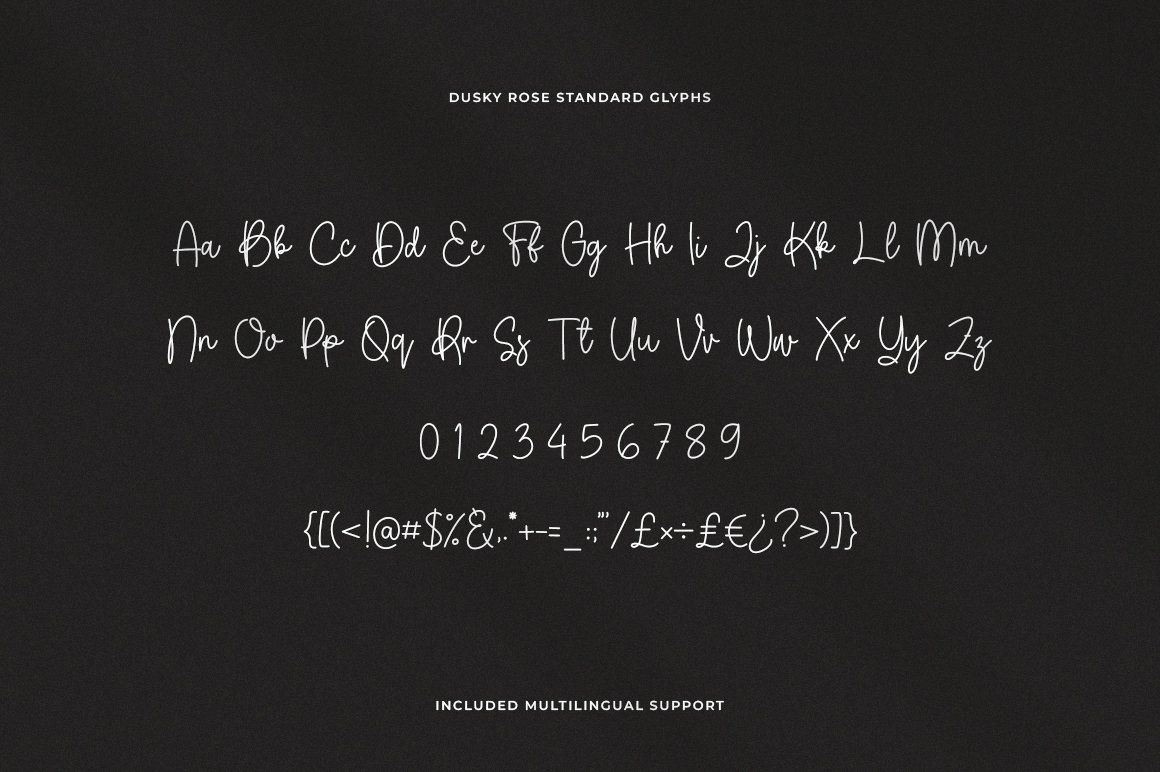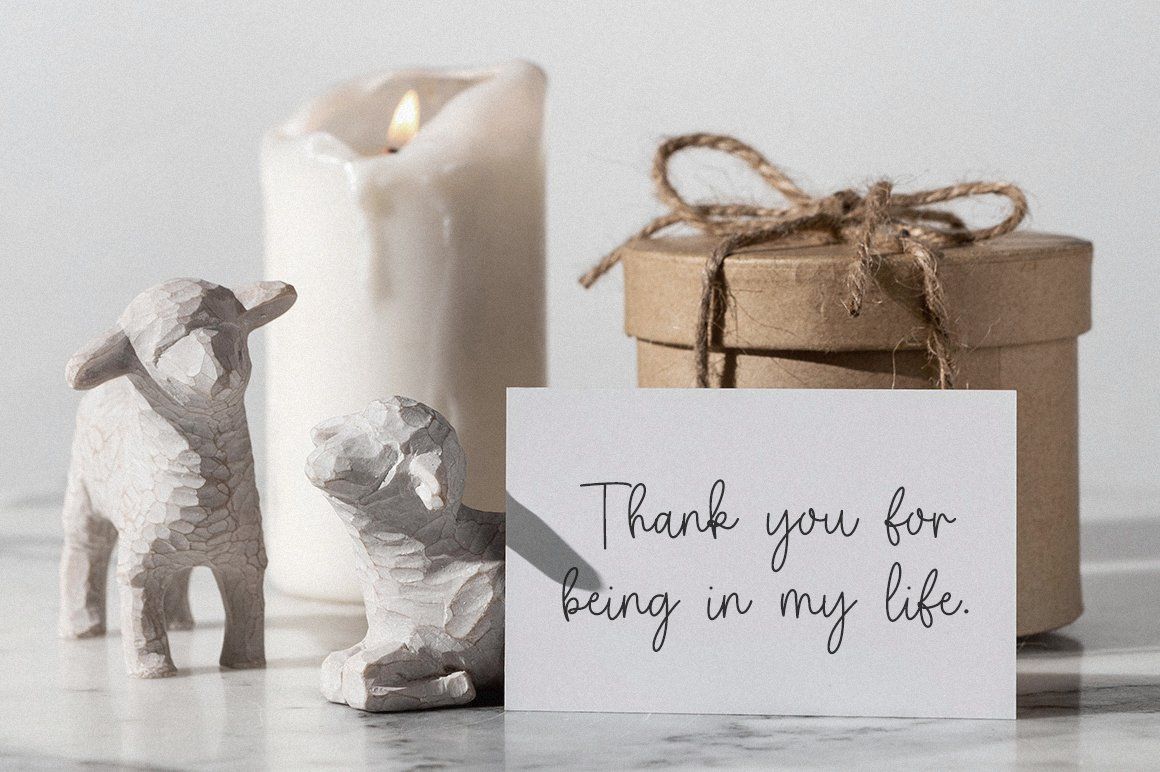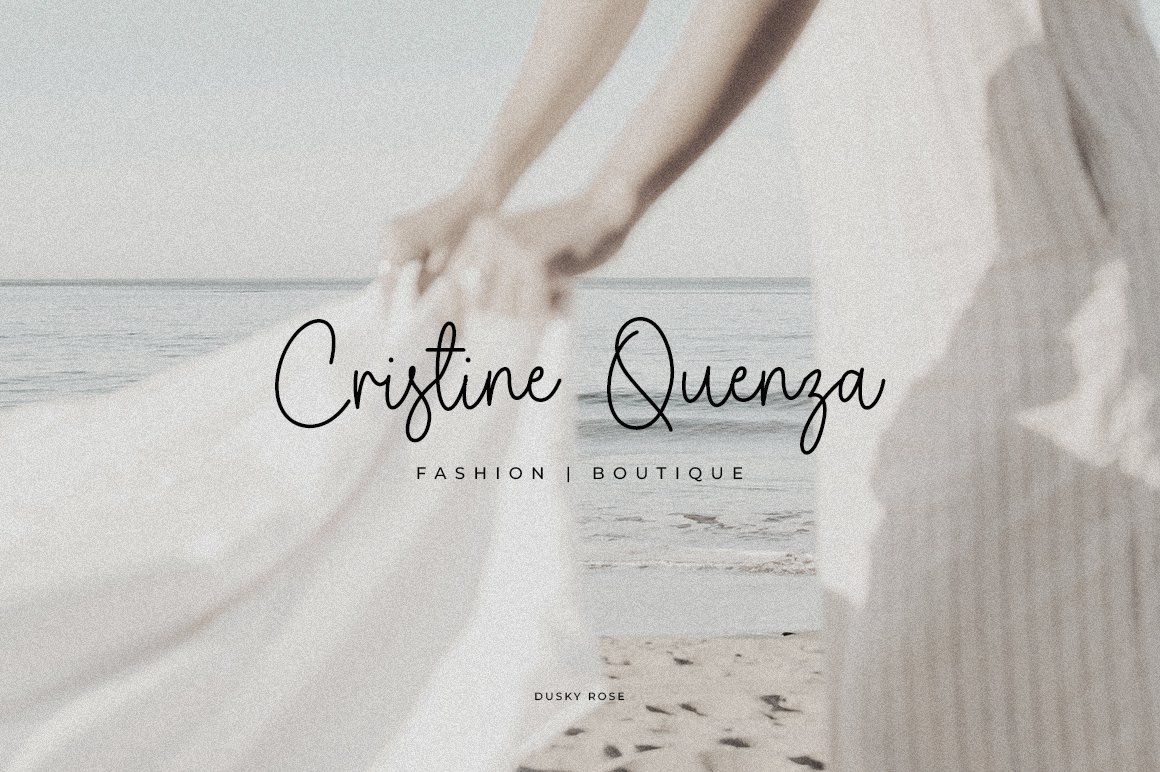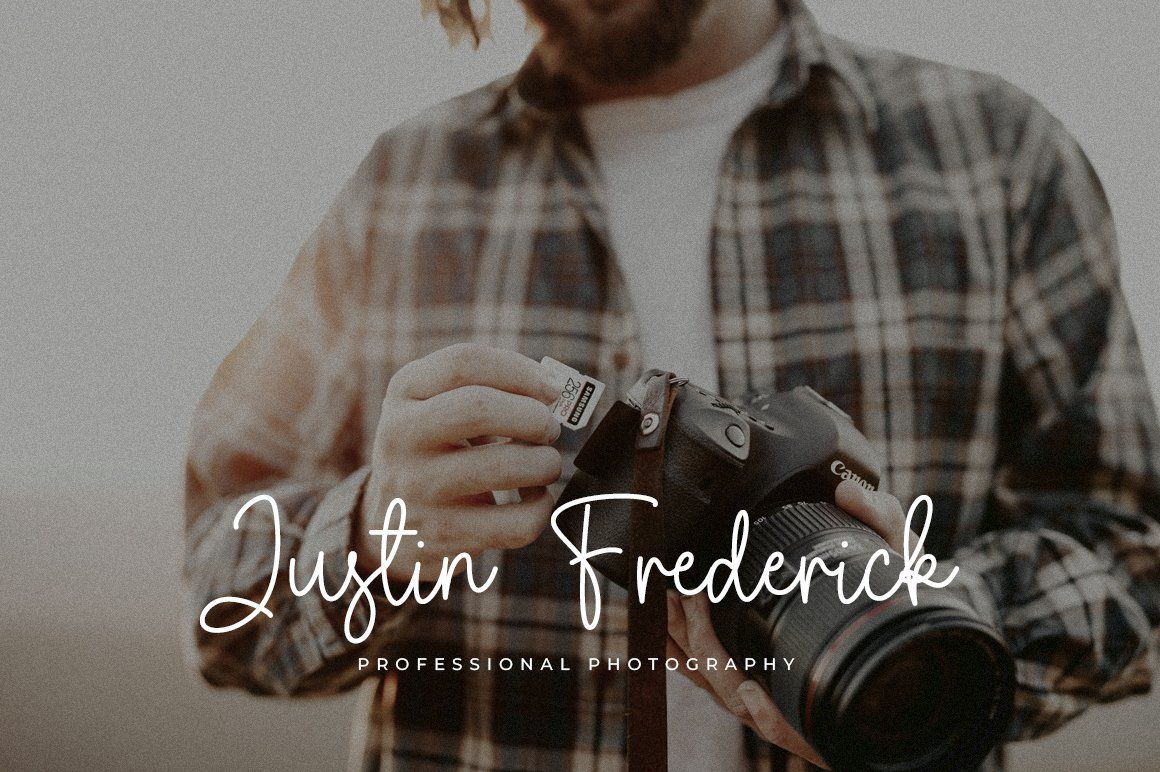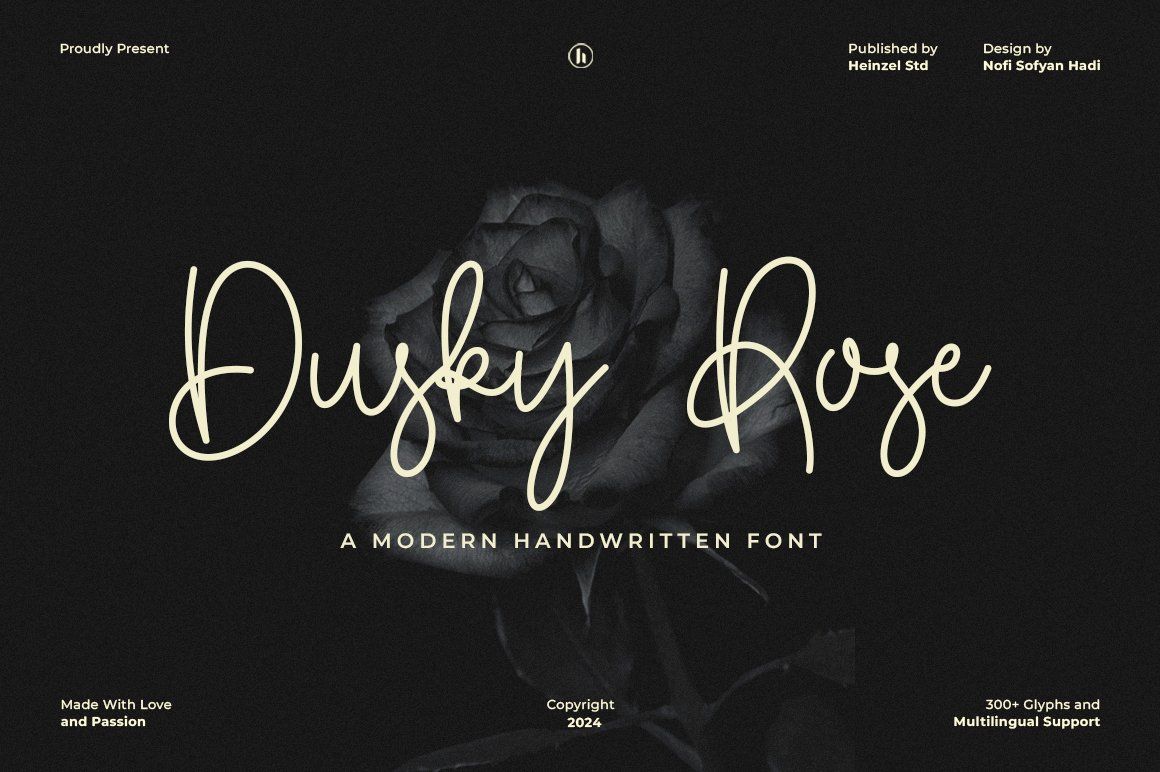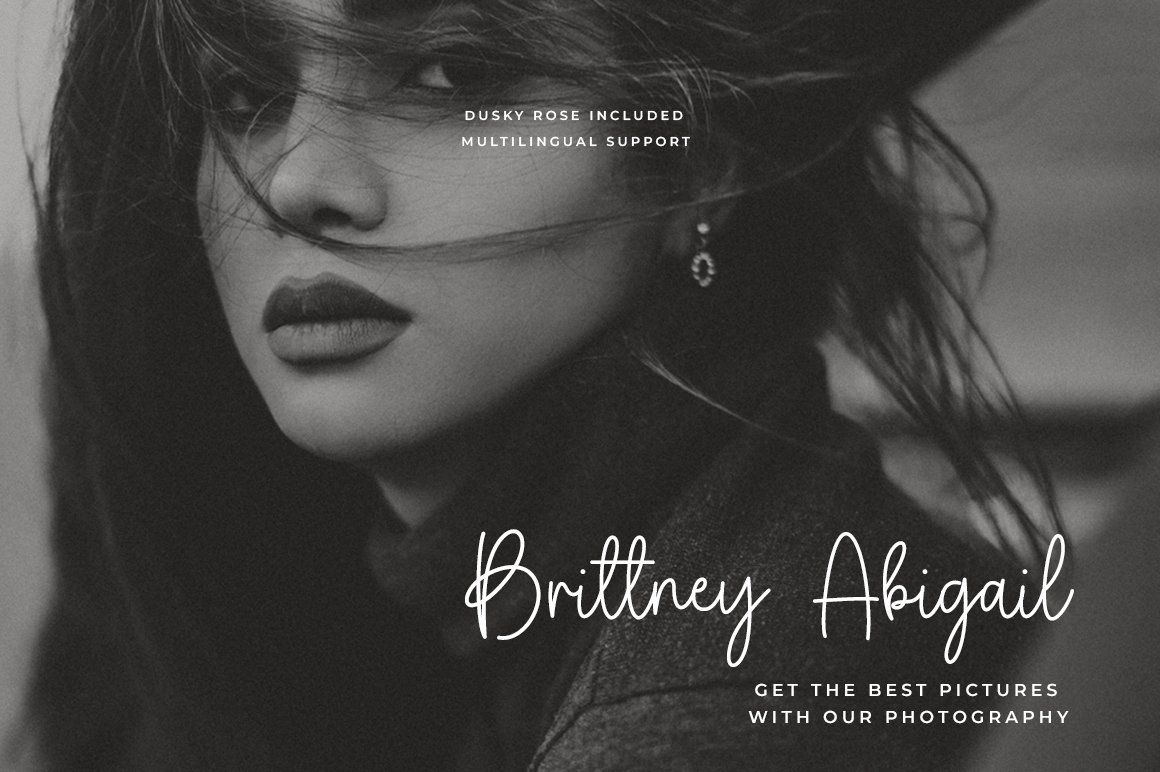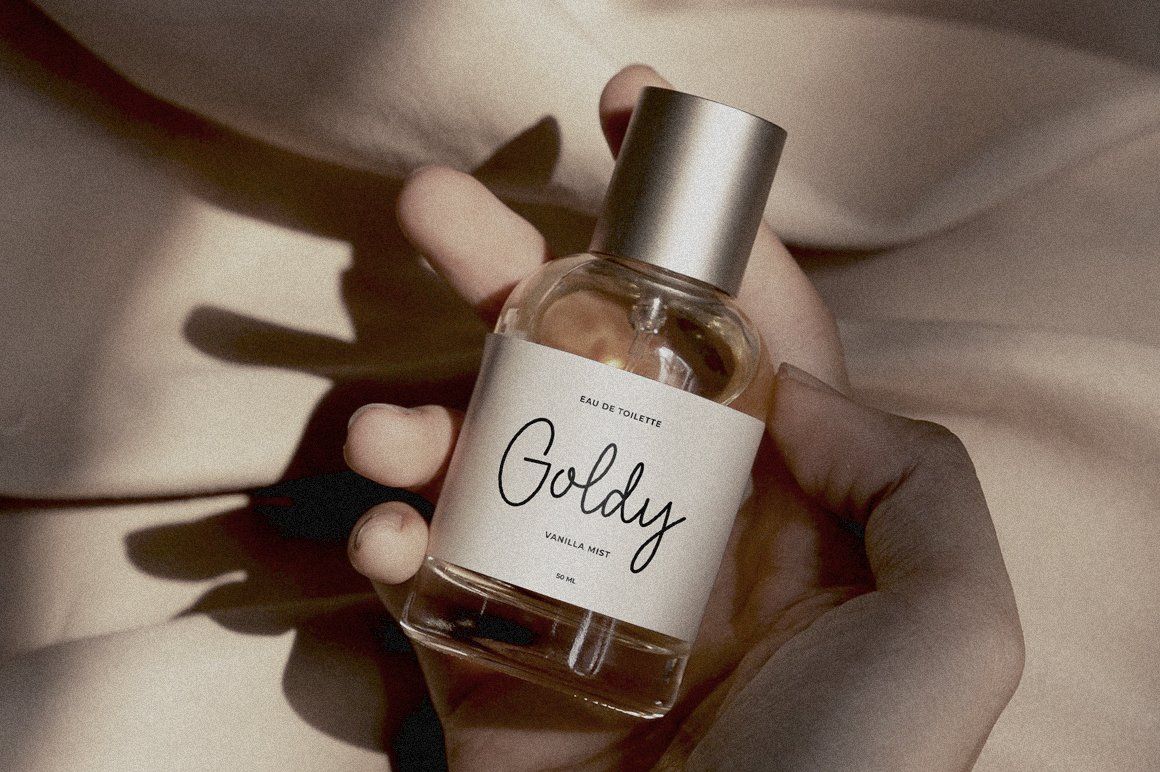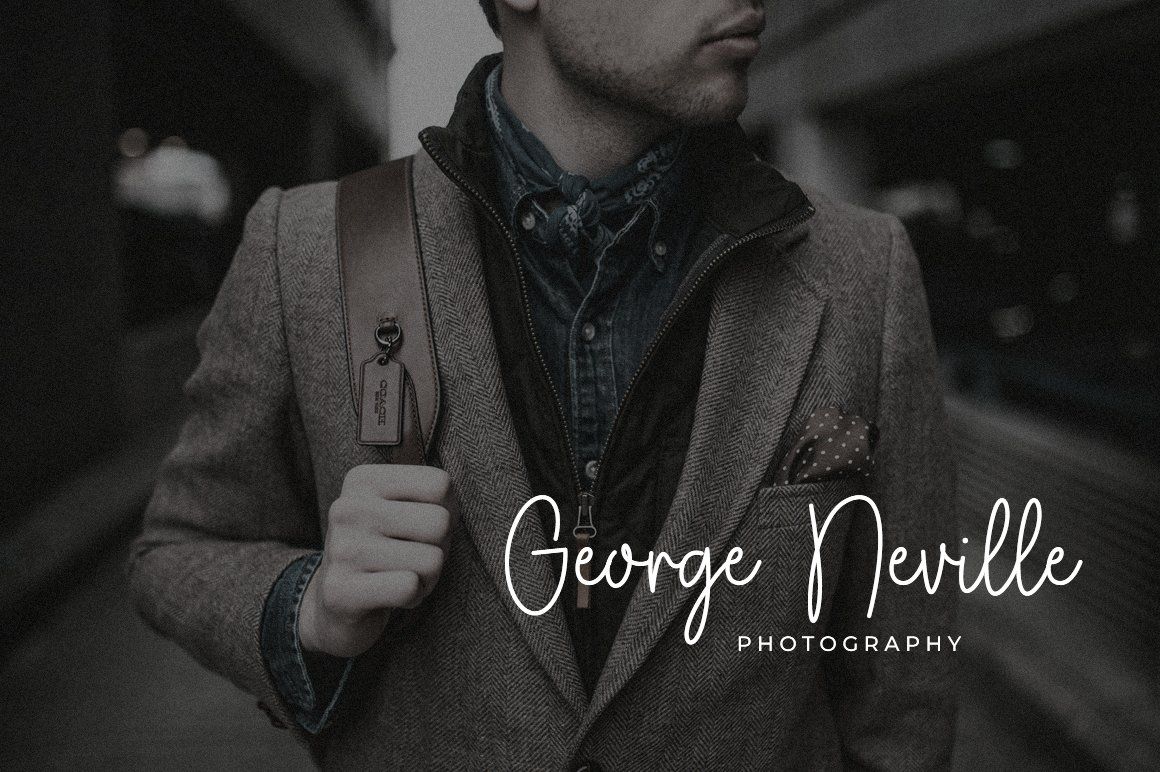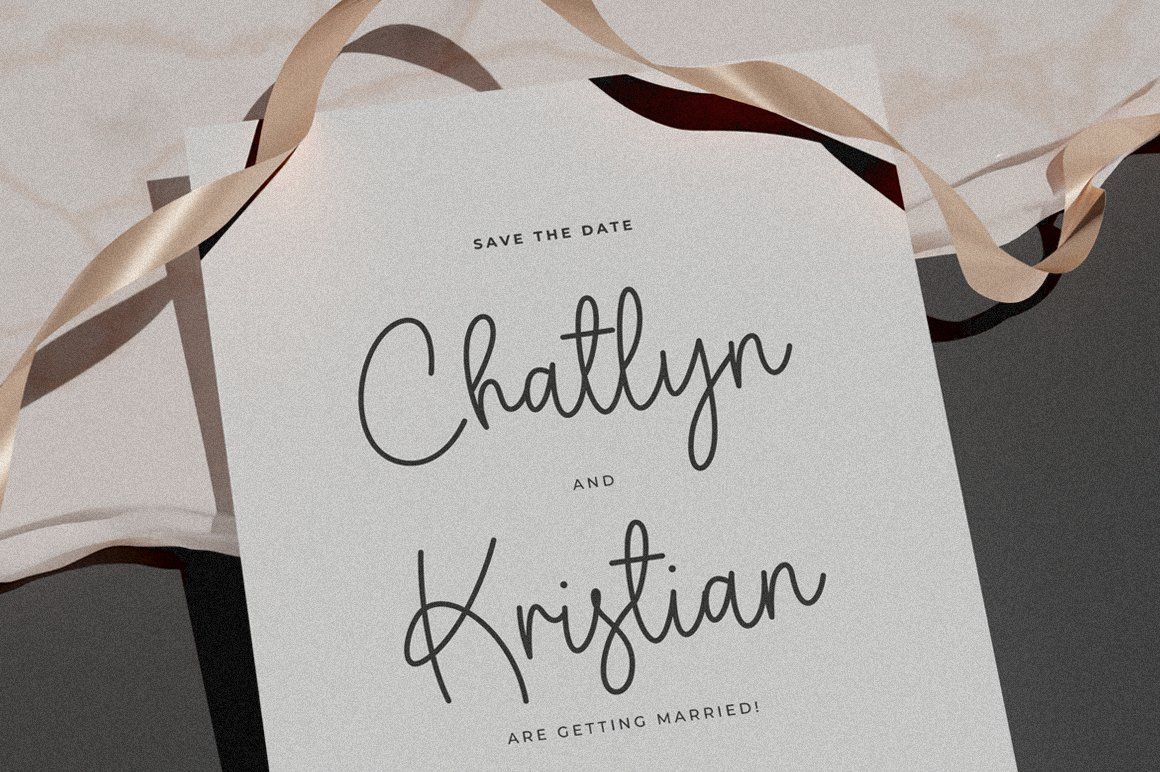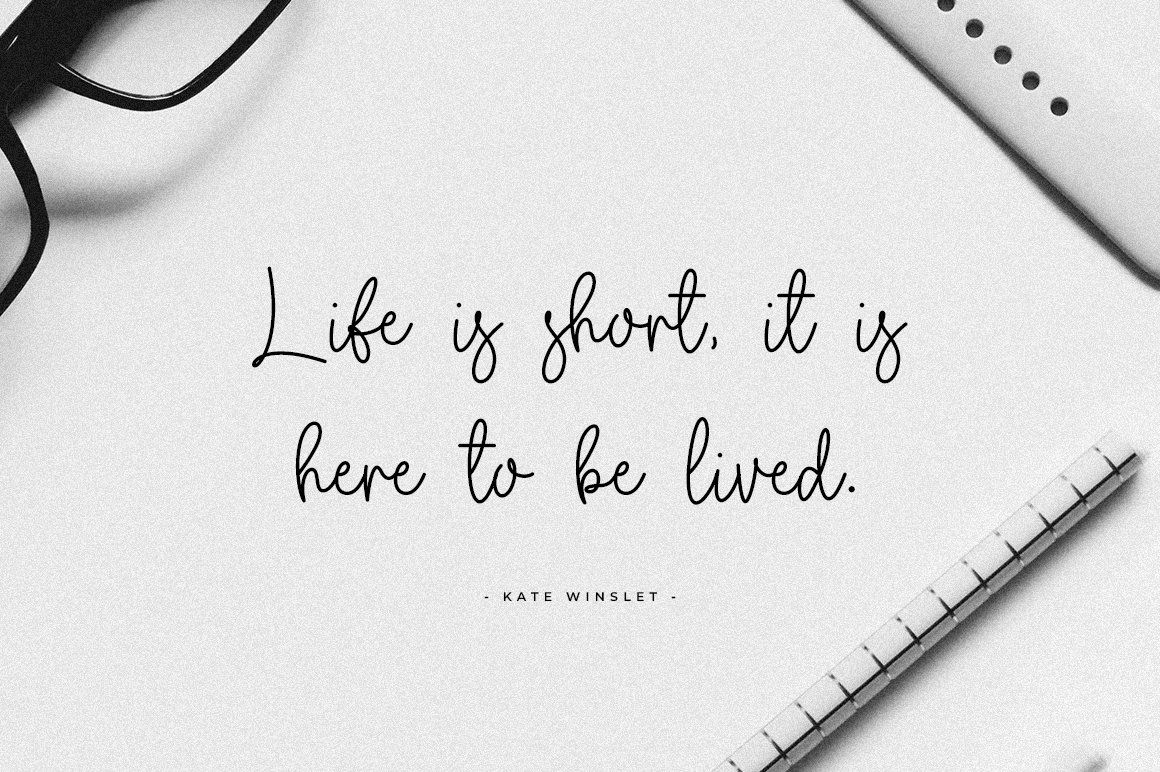
Dusky Rose is a modern handwritten font with an elegant, romantic, and expressive personality. Inspired by the natural flow of handwritten lettering, it combines graceful curves, stylish strokes, and a sophisticated signature feel to create designs that look personal and beautifully crafted.
Perfect for branding, logos, wedding invitations, stationery, fashion designs, beauty products, social media graphics, packaging, quotes, greeting cards, photography, and editorial projects, Dusky Rose adds a luxurious handwritten touch to both personal and commercial designs.
Its flowing letterforms give your typography a natural and authentic appearance while maintaining a polished, contemporary style. With 300+ glyphs and multilingual support, Dusky Rose is versatile enough for a wide range of creative projects.
Dusky Rose is a great choice for designers looking for an elegant handwritten, signature, or modern script font with a romantic and feminine character.